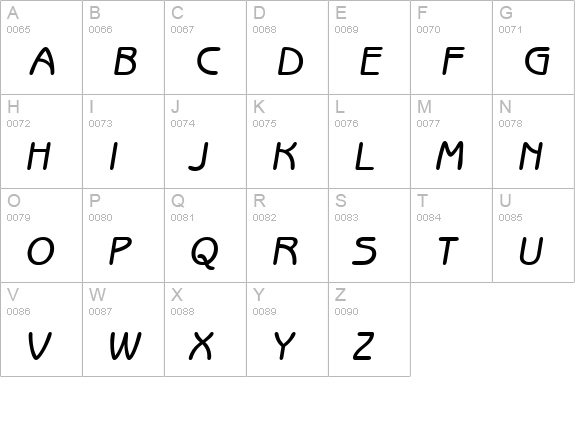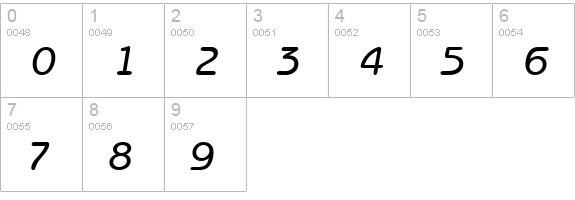
B691-Sans-Medium-Italic is a balanced, medium-weight, italic variant in the B691 typeface family \xE2\x80\x94 well suited to sub-headlines, navigation, and balanced editorial work.
The B691-Sans-Medium-Italic font is a sleek and modern typeface that exudes elegance and sophistication. Its medium weight adds a perfect balance to the italicized design, making it ideal for conveying a sense of style and professionalism. With its subtle slant and clean lines, this font is versatile and can be used for a wide range of design projects. What's even better is that the B691-Sans-Medium-Italic font is available for free download at FontsMarket.com. This means you can easily access this high-quality font and use it in your projects without any cost involved. Whether you're working on branding, advertising, or any other creative endeavor, this font is a fantastic choice that will elevate your designs and make them stand out. Download the B691-Sans-Medium-Italic font today and add a touch of sophistication to your work!